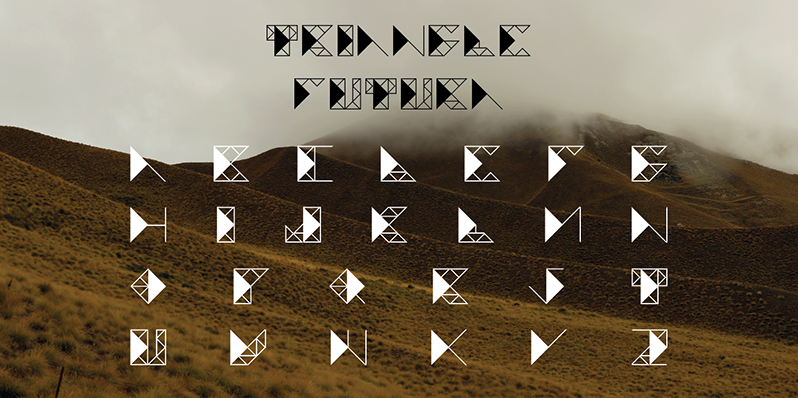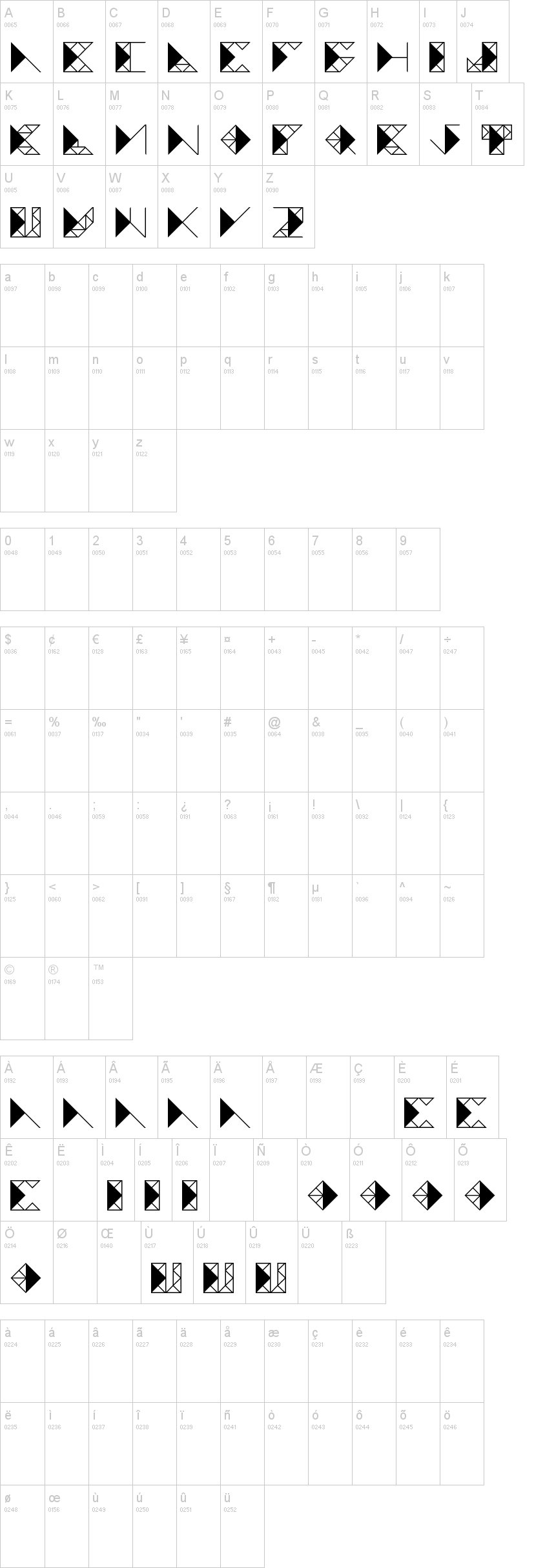
Note of the authorTriangle Futura typeface was designed with the intent of keeping the central triangle constant, while the letters begin to take different shapes around the centralized triangle. This is a wonderfully edgy display font that can be used most effectively with motion graphics.